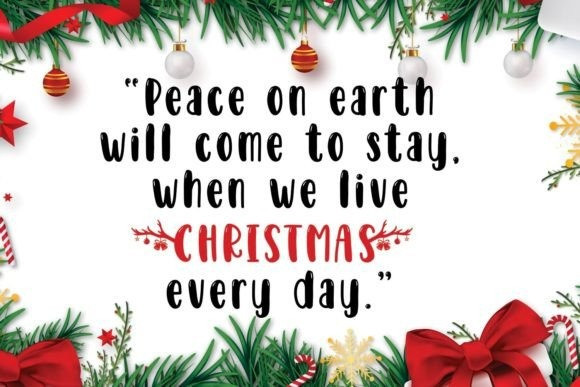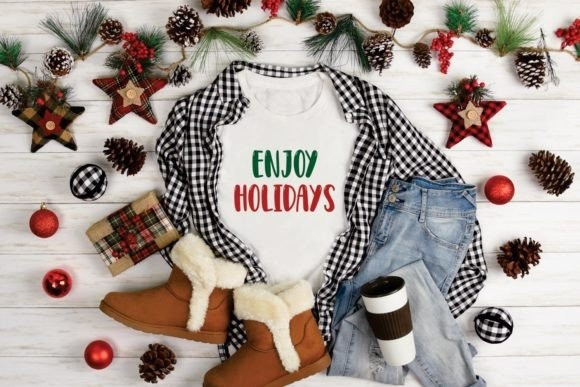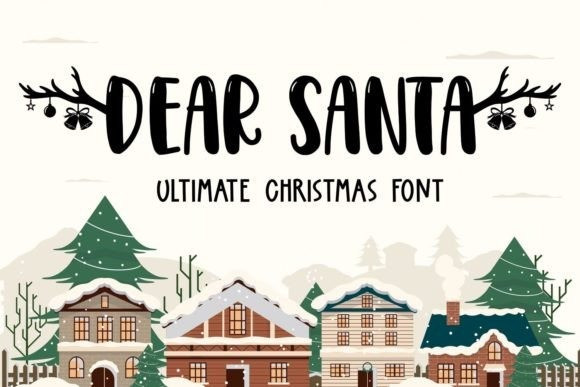
Dear Santa Font
Dar Santa Display Font is a fun and whimsical display font. It looks both cute and jolly and it will enhance each of your designs. The only limit is your imagination.
No matter the topic, this font will be an incredible asset to your fonts’ library, as it has the potential to elevate any creation.
Fall in love with its incredibly versatile style and use it to create spectacular designs! This font is PUA encoded, which means you can access all of the glyphs and swashes with ease!